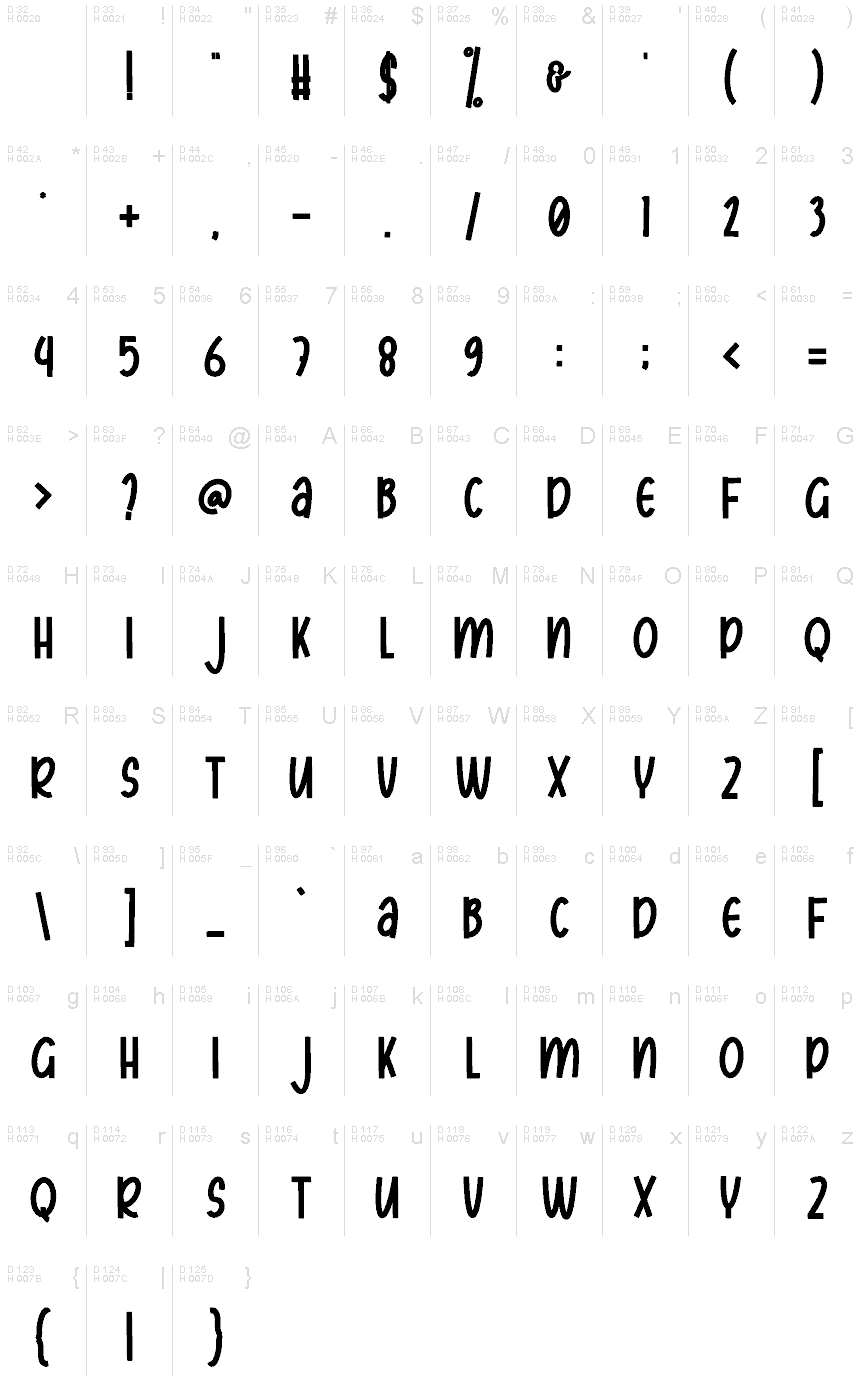
Labreak
Labreak font by Skiiller Studio is a free display font made with condensed letters in cartoon style. Expressive with an irregular shape, the typeface comes with a modernist feel that gives it its casual aesthetic. The contemporary appearance sets this tool within many creative applications you can undertake.
Use Labreak in branding concepts for novel products, costume design printables or animations, toy box packagings, applications for children (websites or apps), store banners at schools or parks, book cover titles, and page titles/headers on blogs and websites.